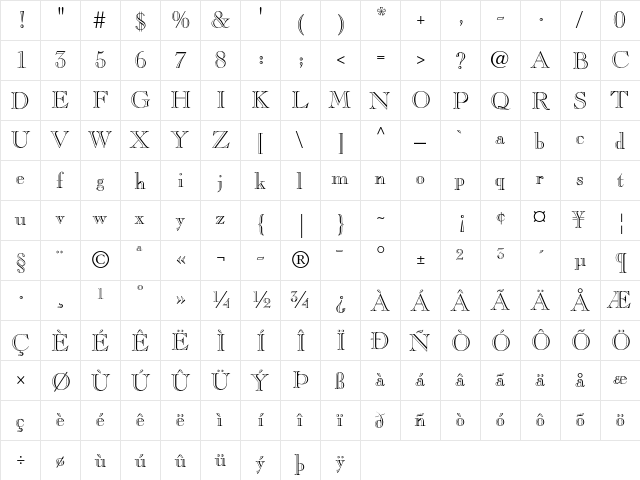
Caslon Open Face LT Std Regular
| Designer | BB&S Staff |
Design Context for Caslon Open Face LT Std Typeface
Caslon Open Face LT Std takes a measured approach to typography — its balanced proportions and neutral character make it a reliable workhorse for both digital and print work. The delicate stroke weight brings airiness and refinement to layouts.